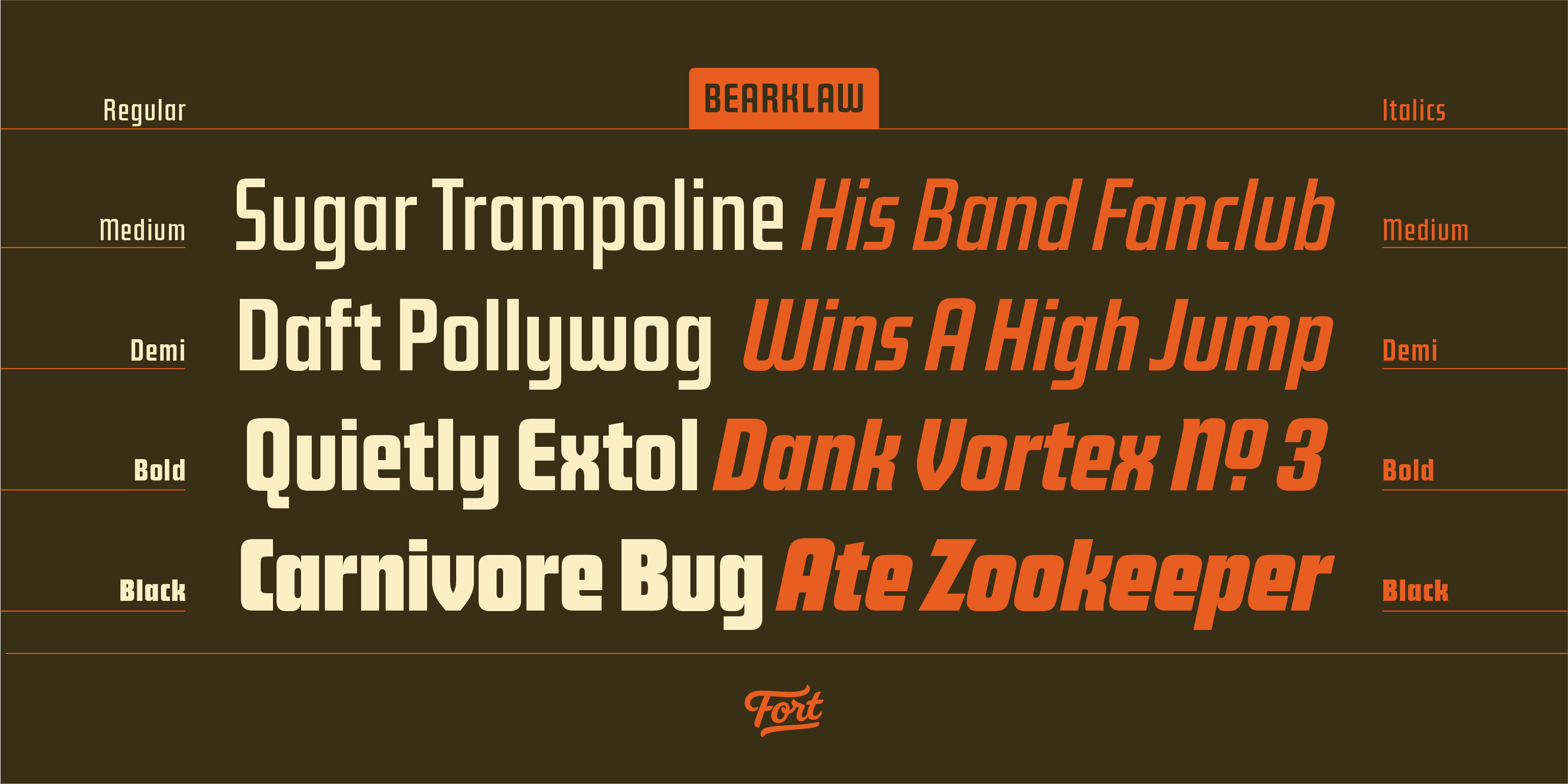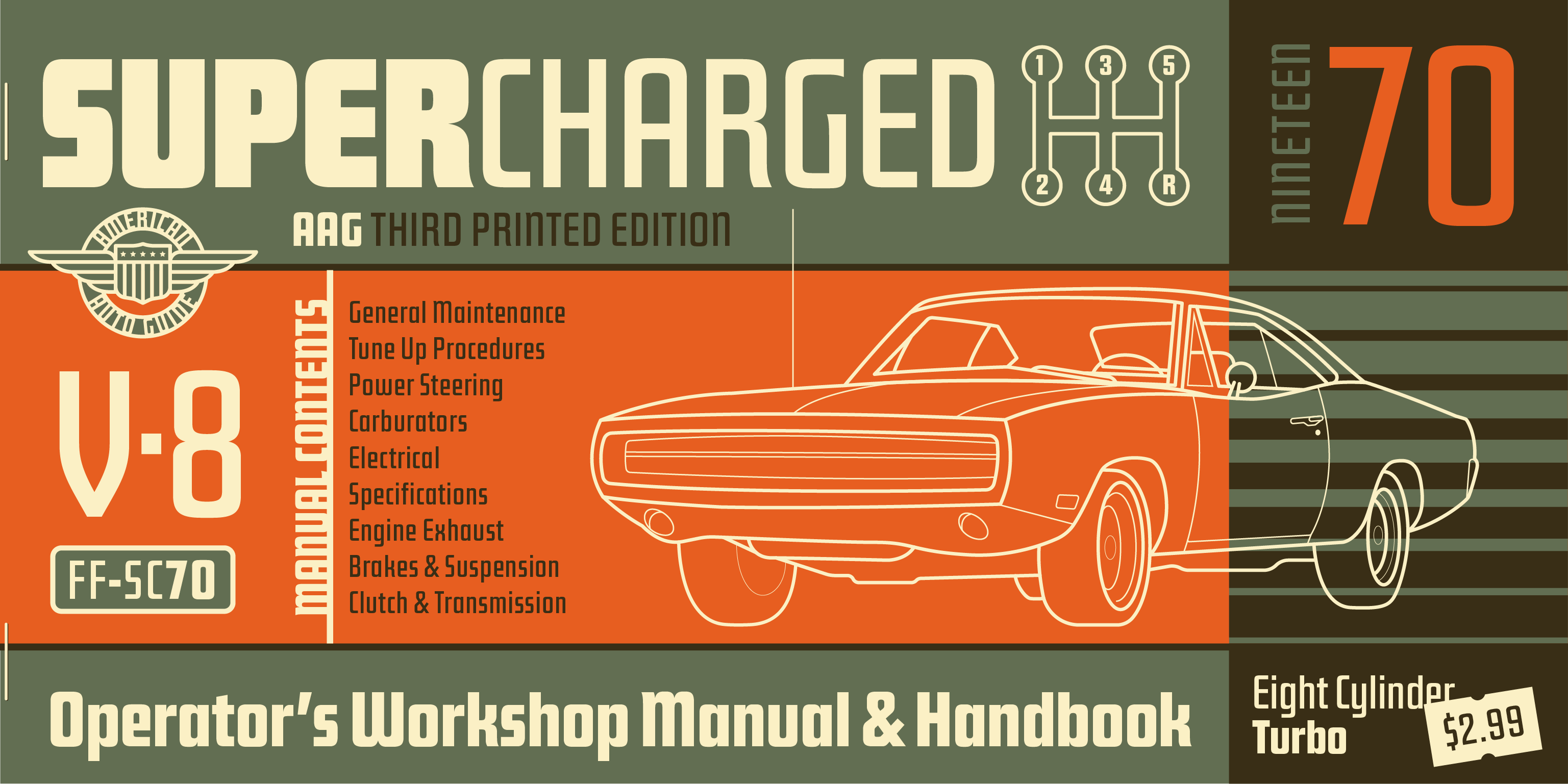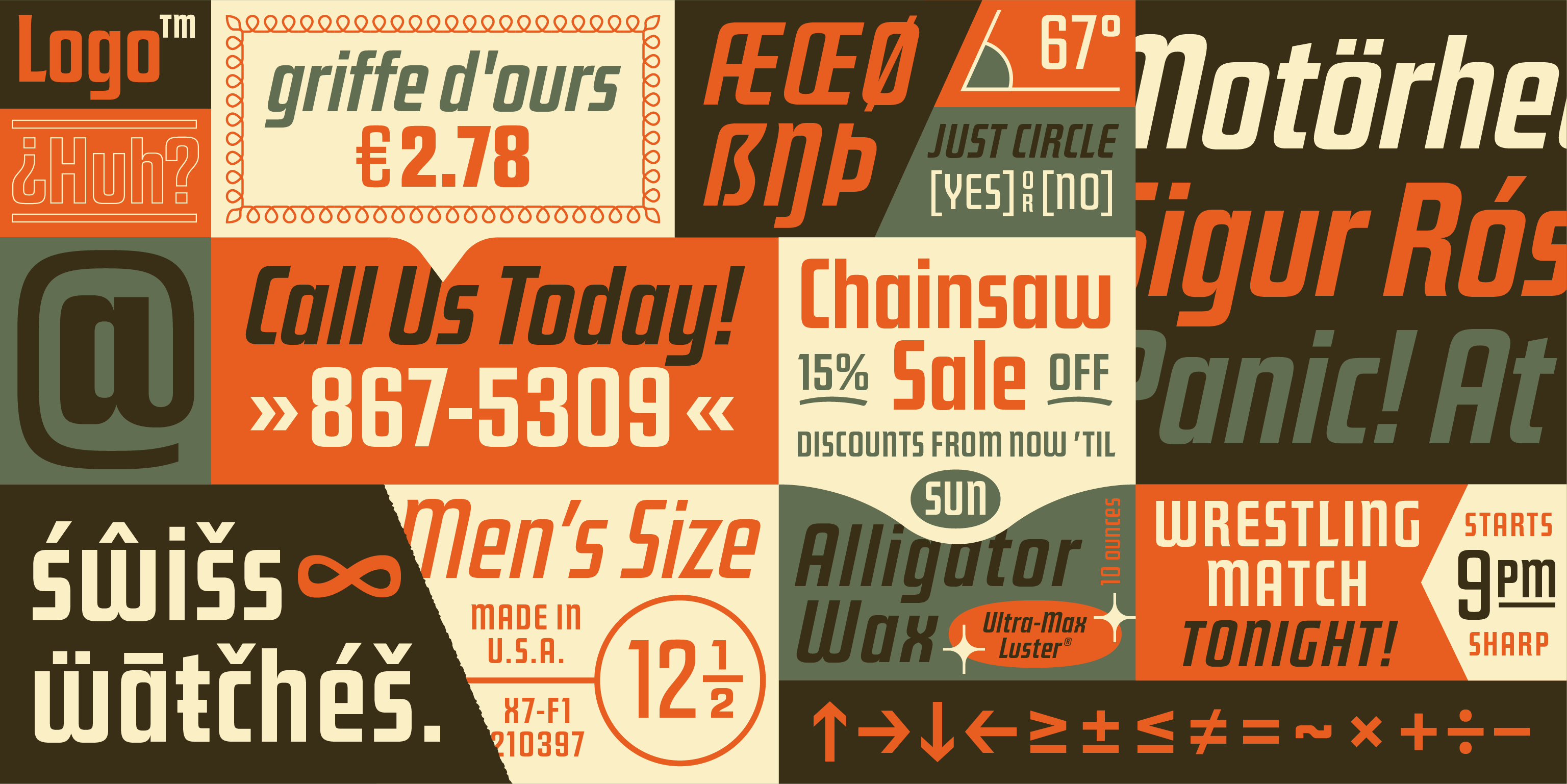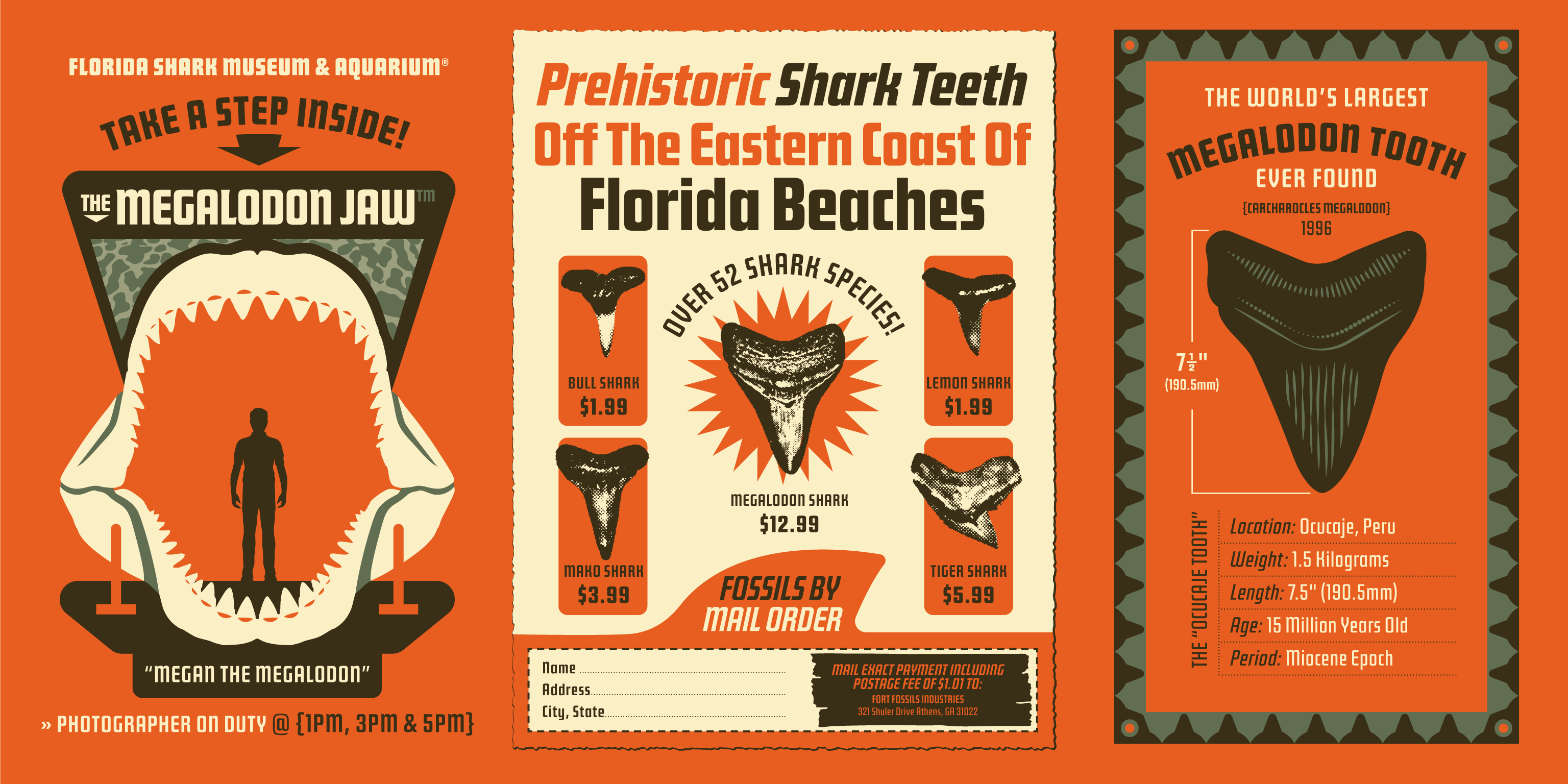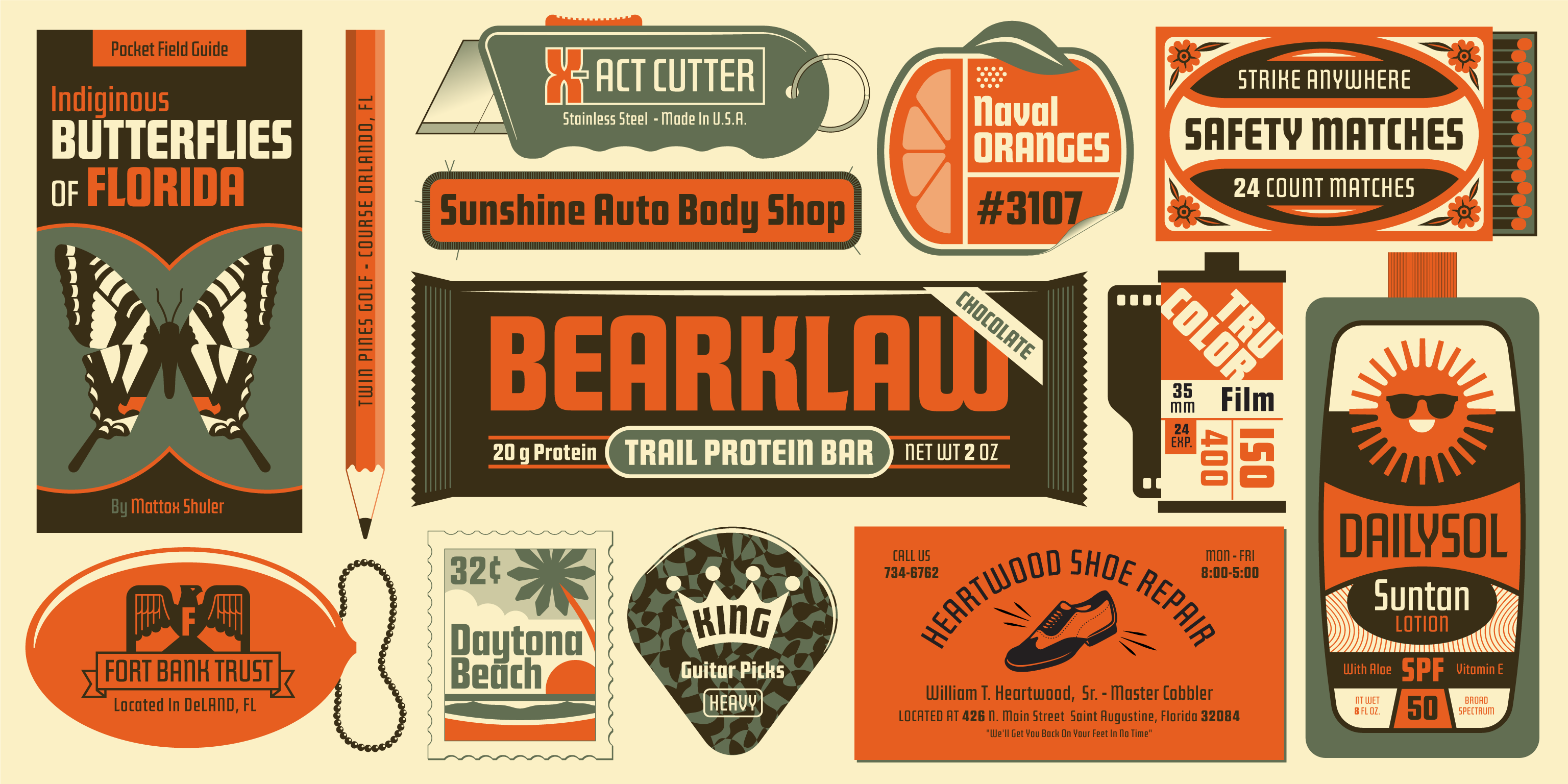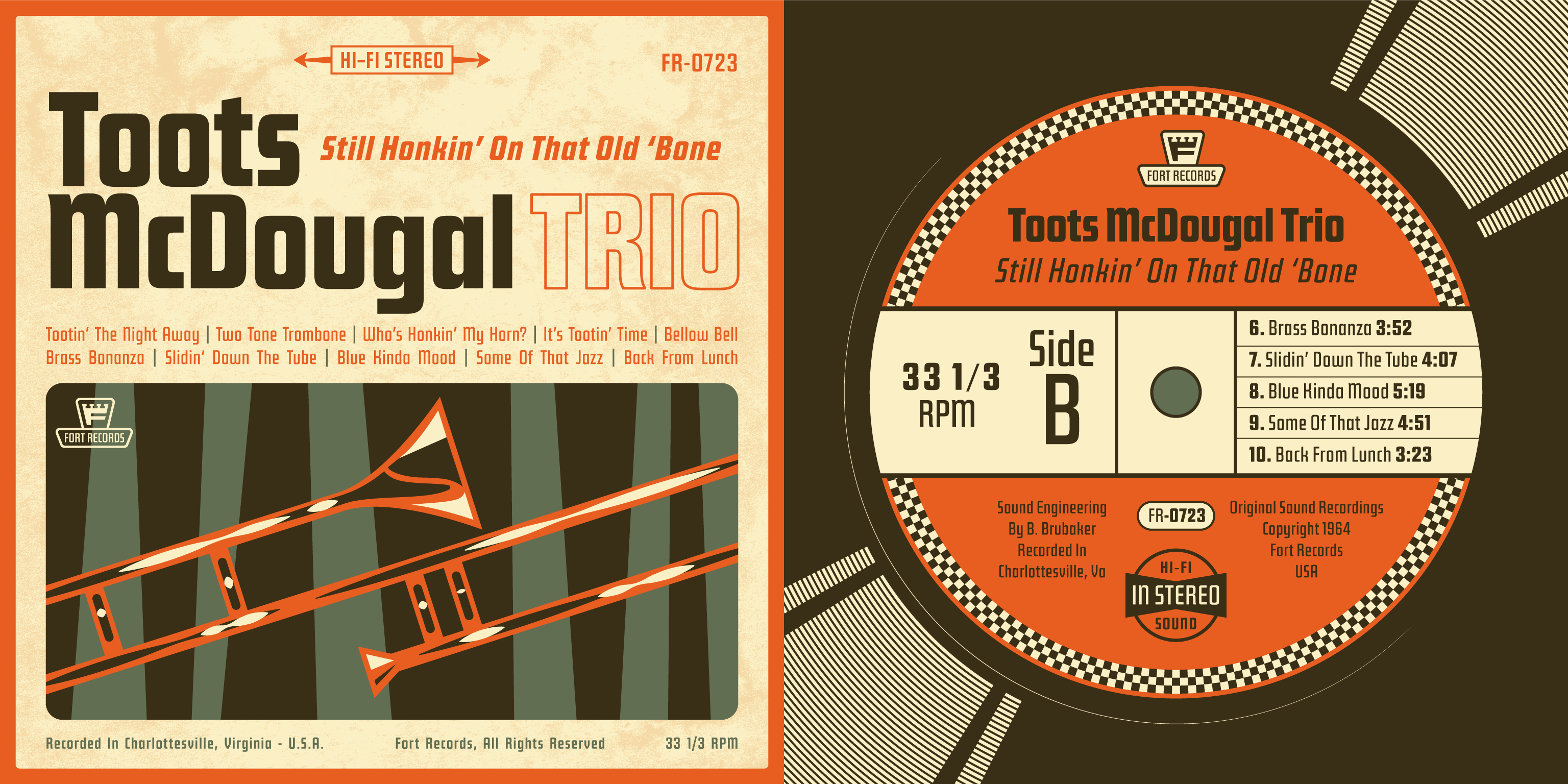
Bearklaw
Sans
Case-sensitive forms
Bonus styles
Stylistic alternates
Italics
A playful powerhouse inspired by the geometry behind Futura Display.
Sometimes, creative inspiration is a slow trickle. Other times, it mauls you in a single moment and won’t let go. Bearklaw’s moment occurred when stumbling upon a mail order ad for a ’65 Lyons Maid model Stingray.
The title is set in a unique cut of Futura Display—that second cousin once removed of the ever-popular Futura family. As we dove into researching various pre-digital cuts, we found ample space to explore, riff, and expand on that irresistible charm—the oddity that just seems to work.
Bearklaw is not a pure revival but a fusion of the ideas we saw at play. These makeshift geometric systems come together to form a powerhouse display family, brought into the modern era. Bearklaw includes various historical alternates, some good ol’ goop, and a wider cut for particular use at small sizes to satiate additional cravings for The ‘Klaw.